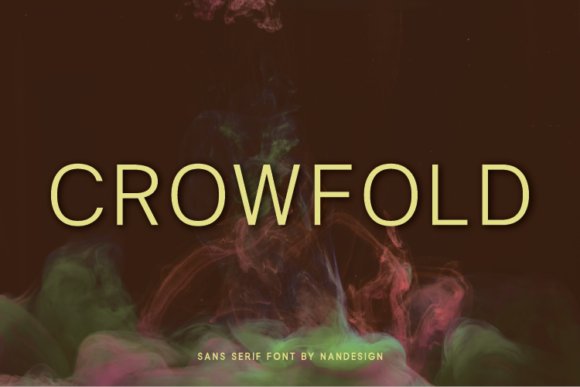
The Ultimate Design Companion: Crowfold Font
Have you ever been in the middle of a design project, and suddenly, you’re stuck on finding the perfect font? I recall a particularly frustrating experience when I was working on a wedding invitation design. My client wanted something elegant, yet modern, and I just couldn’t seem to find the right fit. That’s when I stumbled upon Crowfold Font, and let me tell you, it was a game-changer! 😊
Crowfold Font: A Simple yet Versatile Sans Serif
Crowfold is a simple and versatile sans serif font designed to complement every project you’re working on. It’s perfect for displays, headers, invitations, save the dates, weddings, and so much more! Its clean lines and effortless charm make it an excellent addition to any designer’s toolkit.
My Honest Review
So, what do I love about Crowfold Font? Here are a few things that make it stand out:
- ✨ Clean and modern design: Crowfold’s sans serif design makes it perfect for projects that require a fresh and contemporary look.
- ✅ Highly versatile: This font can be used for a wide range of projects, from digital displays to print materials.
- 💡 Easy to read: Crowfold’s clear and concise design makes it easy to read, even at smaller font sizes.
Now, I’m not saying it’s perfect, but there are a few quirks to keep in mind:
- 🤔 Limited glyphs: While Crowfold has a decent range of glyphs, it may not have everything you need for more complex designs.
- ⚠️ Not ideal for body text: Due to its clean design, Crowfold may not be the best choice for longer blocks of body text.
- Experiment with Crowfold’s OpenType features, such as Stylistic Alternates and Glyphs, to add some extra flair to your design.
The Story Behind Crowfold Font
Crowfold Font was designed with the intention of creating a simple, yet versatile font that could complement a wide range of design projects. The designer aimed to create a clean and modern sans serif font that would be easy to read and highly adaptable. While I couldn’t find any information on the designer’s personal story, it’s clear that their goal was to create a font that would make design easier and more enjoyable for everyone.
| Font Name | Crowfold Font |
| Author | Nan Design |
| What is Crowfold Font best used for? | Crowfold Font is perfect for displays, headers, invitations, save the dates, weddings, and other design projects that require a clean and modern sans serif font. |
| Is Crowfold Font suitable for body text? | While Crowfold is easy to read, it may not be the best choice for longer blocks of body text. Consider using a serif font for better readability. |
| Does Crowfold Font have OpenType features? | Yes, Crowfold Font has some basic OpenType features, including Stylistic Alternates and Glyphs. |